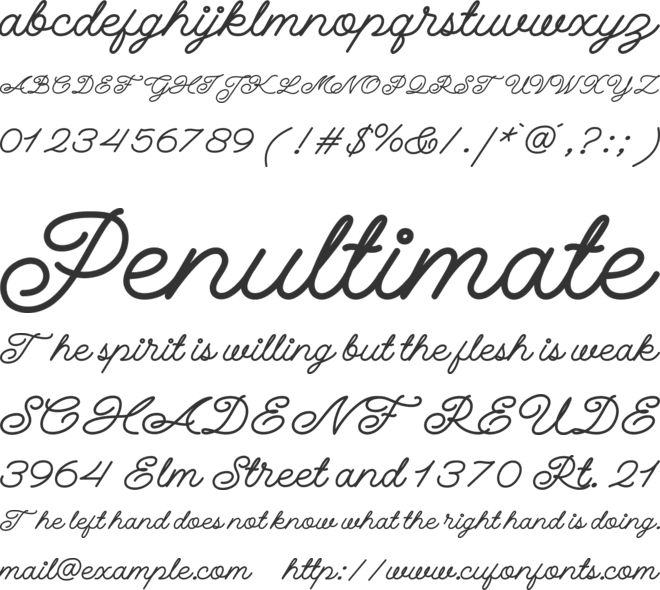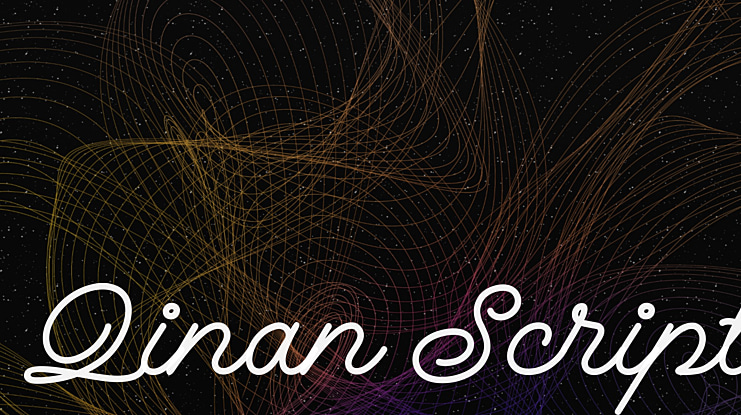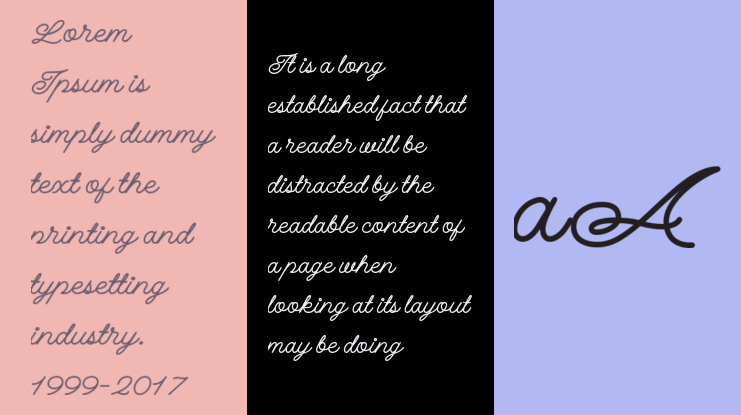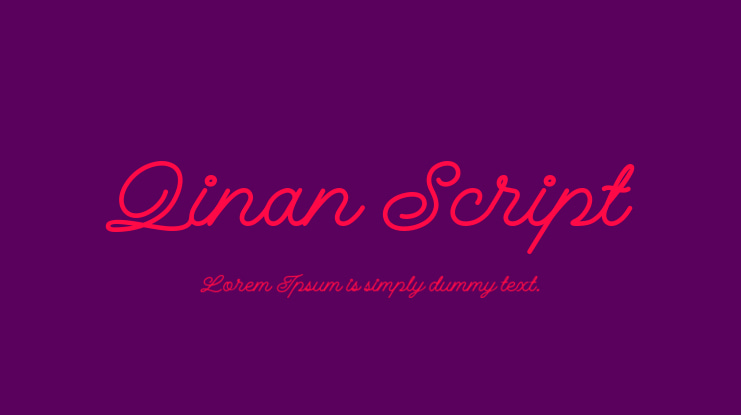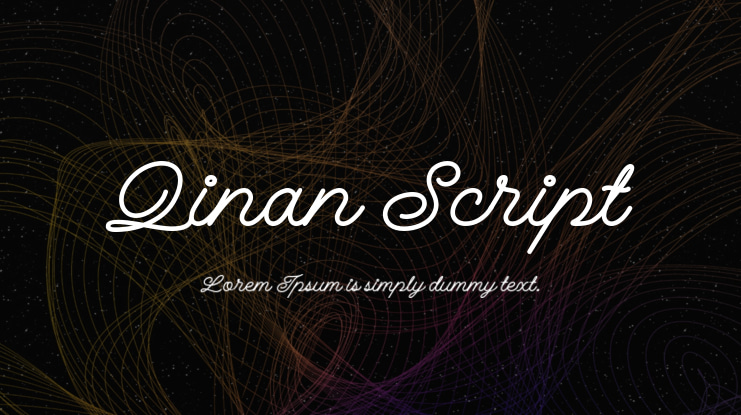
Qinan Script Font
Qinan Script is a monoline display script that has a handwritten feel and modern. With a lot of opentype features such as swash and stylistic alternates, Qinan Script could be a nice font for lettering design or any design project
Qinan Script is Multilungual support (Latin Extended-A) covering Bosnian, Catalan, Czech, Danish, German, English, Spanish, Estonian, Finnish, French, Irish, Croatian, Hungarian, Icelandic, Italian, Lithuanian, Latvian, Maltese, Dutch, Norwegian, Polish, Portuguese, Slovak, Slovenian, Albanian, Swedish, Turkish